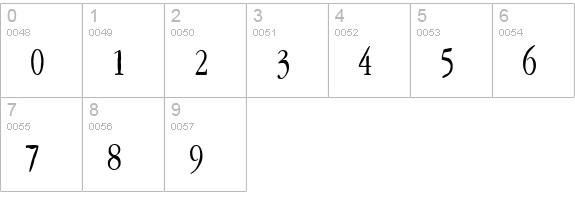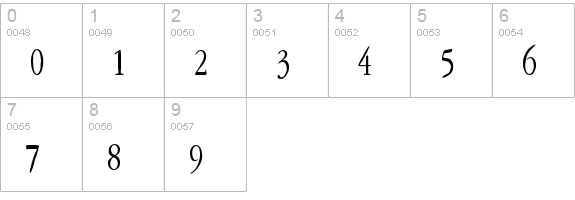
Lefferts Corners Font Details
Introducing Lefferts Corners, a captivating and versatile font that is sure to enhance any design project. With its elegant yet modern aesthetic, Lefferts Corners effortlessly combines sophistication and creativity, making it the perfect choice for a wide range of applications. Crafted with meticulous attention to detail, Lefferts Corners offers a unique blend of sharp edges and smooth curves, creating a visually pleasing and harmonious typeface. Its clean and legible characters make it suitable for both headlines and body text, ensuring readability across various mediums. What sets Lefferts Corners apart is not only its impeccable design, but also its accessibility. This exceptional font is freely available to download at FontsMarket.com, making it a valuable asset for designers, creatives, and typographers alike. Whether you are working on a personal project or a professional endeavor, Lefferts Corners allows you to add a touch of sophistication and elegance without breaking the bank. As you explore the vast possibilities of this font, you will discover its versatility in complementing a variety of design styles, from minimalist and contemporary to vintage and retro. Its extensive character set includes numerals, punctuation marks, and multilingual support, ensuring seamless integration into any project. Lefferts Corners is a true testament to the power of typography to elevate and communicate your message effectively. Whether you are designing a logo, creating branding materials, or crafting eye-catching headlines, this font will undoubtedly leave a lasting impression. Download Lefferts Corners for free today at FontsMarket.com and unlock the limitless potential of this remarkable font. Embrace the beauty of typography and let Lefferts Corners take your designs to new heights of creativity and professionalism.